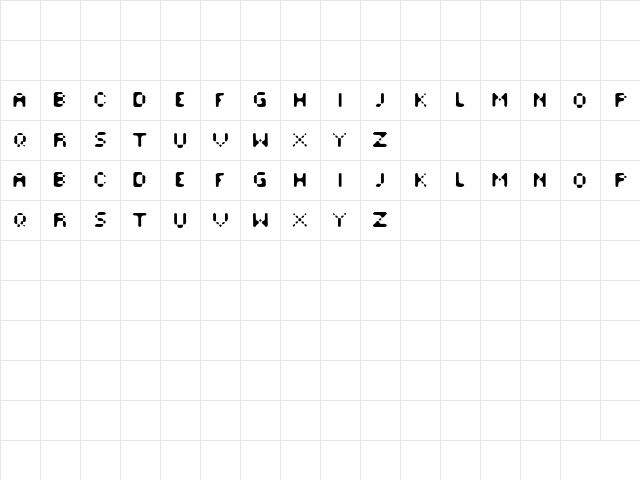
Afterfonts Regular Font Preview
Afterfonts Regular
Afterfonts Regular Font Details
Design Context for Afterfonts Typeface
Afterfonts takes a measured approach to typography — its balanced proportions and neutral character make it a reliable workhorse for both digital and print work.